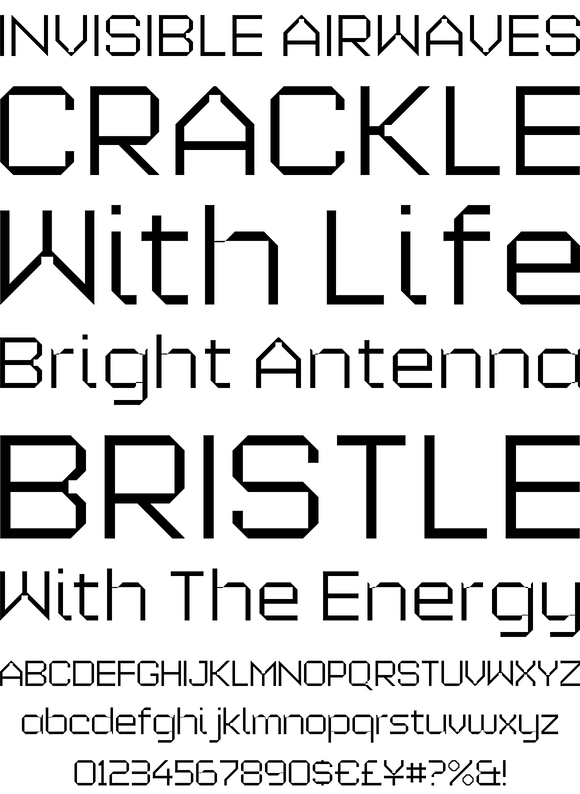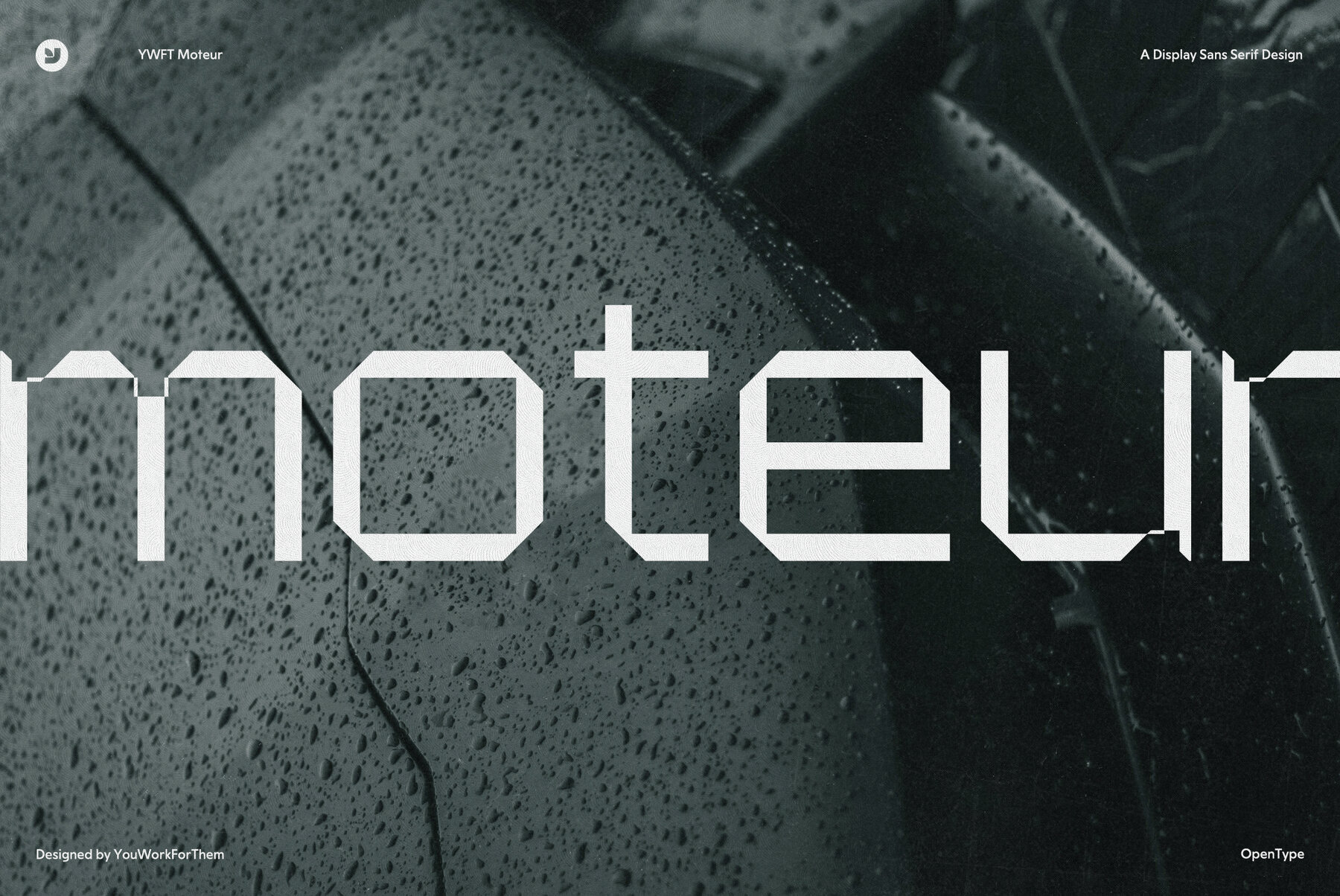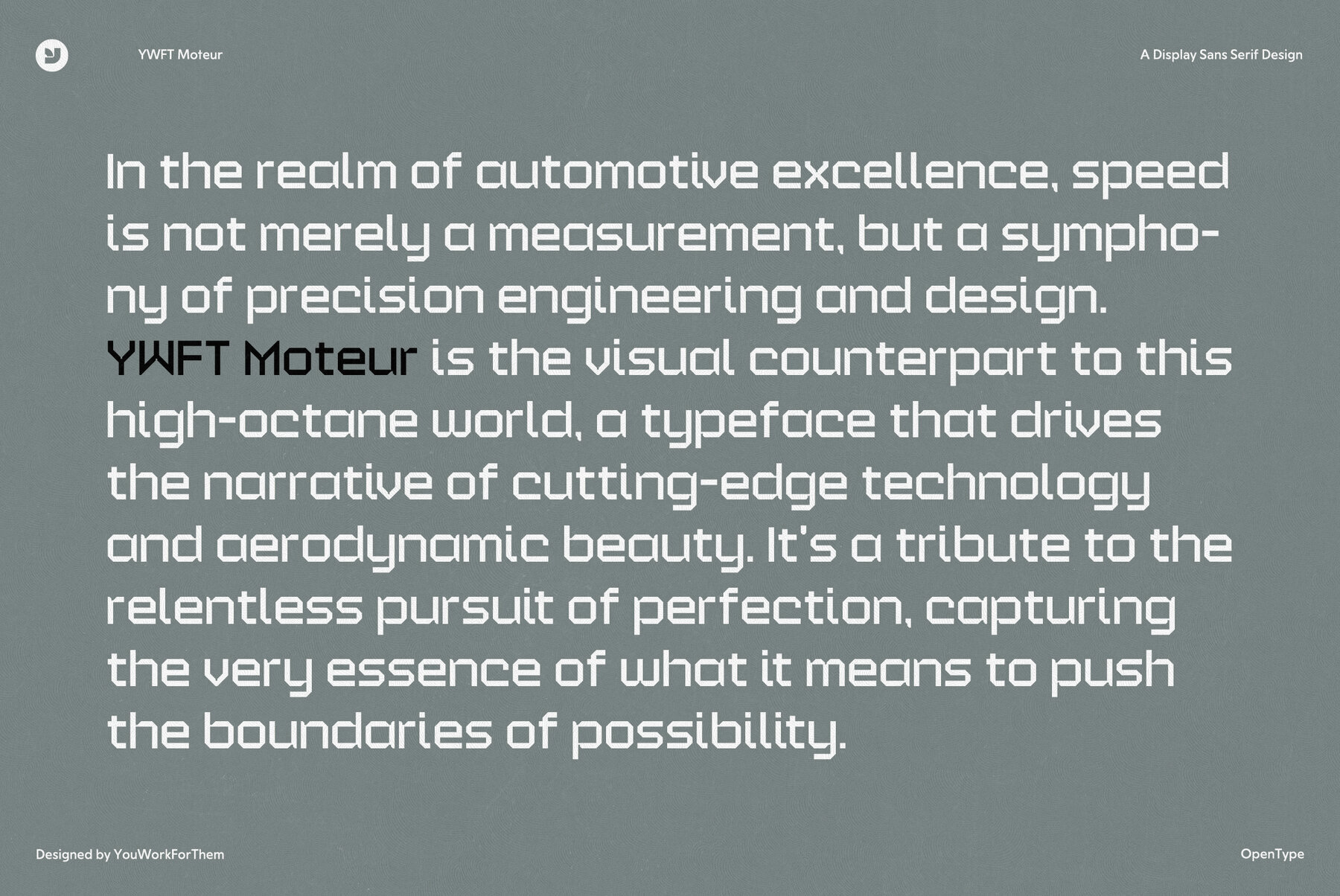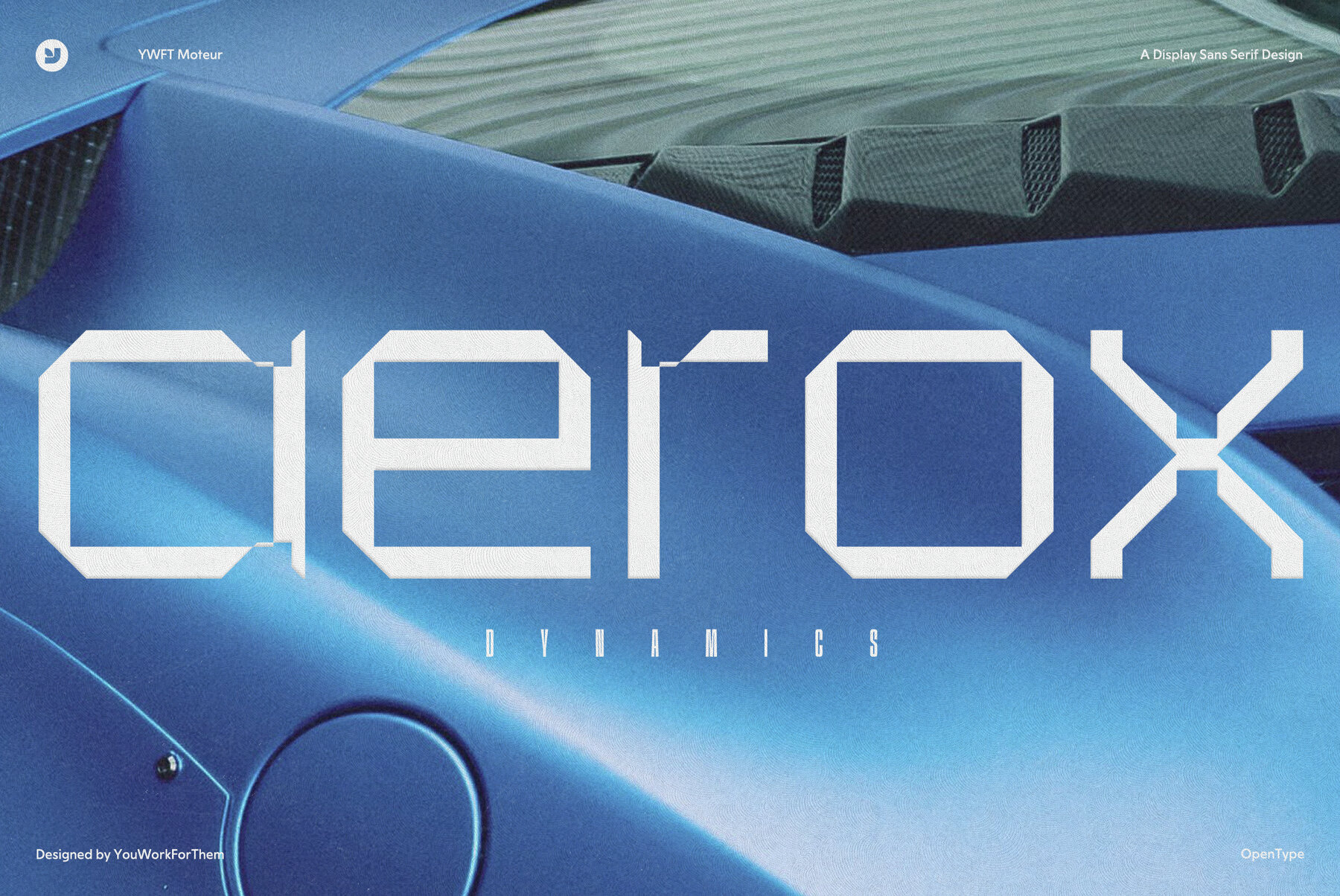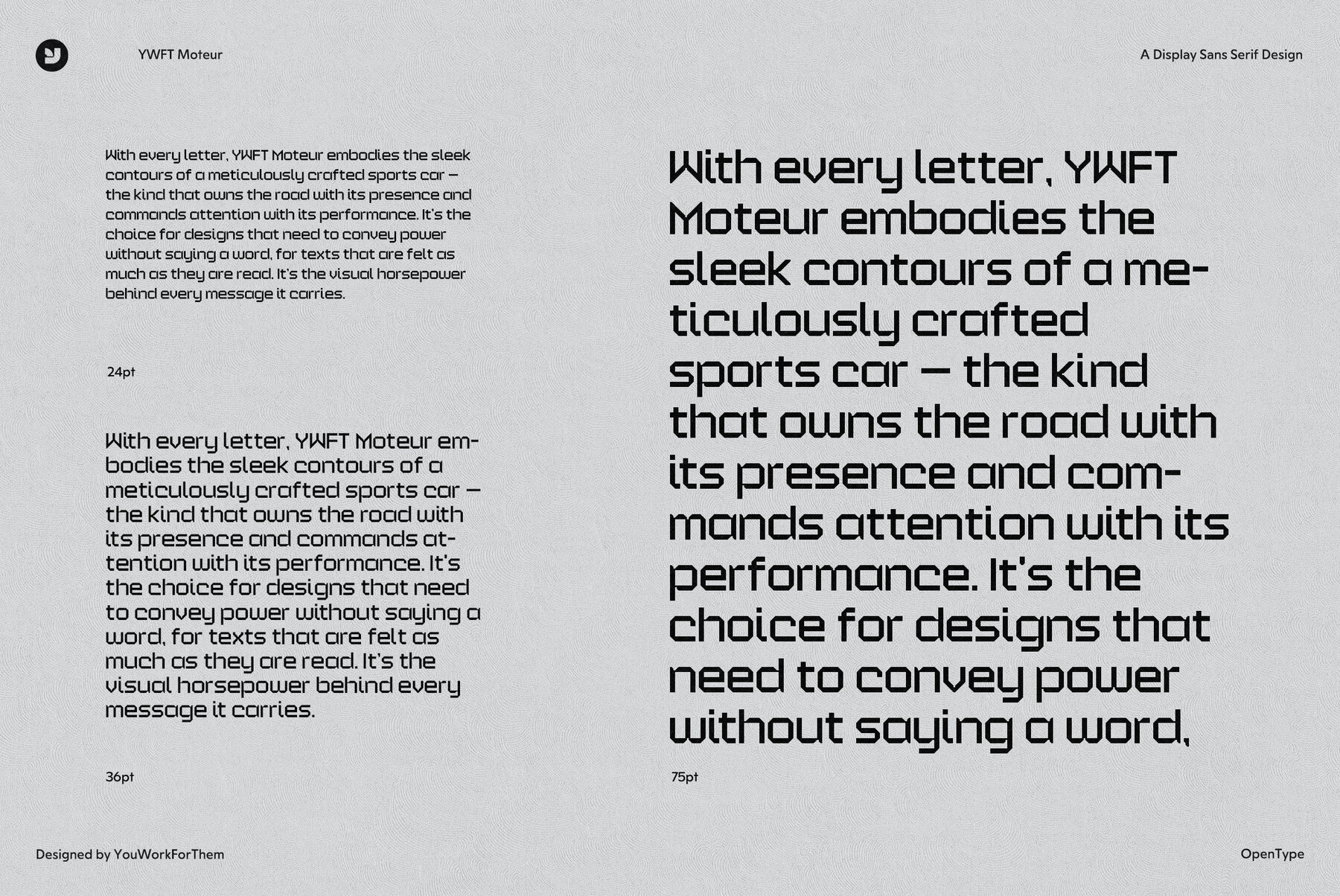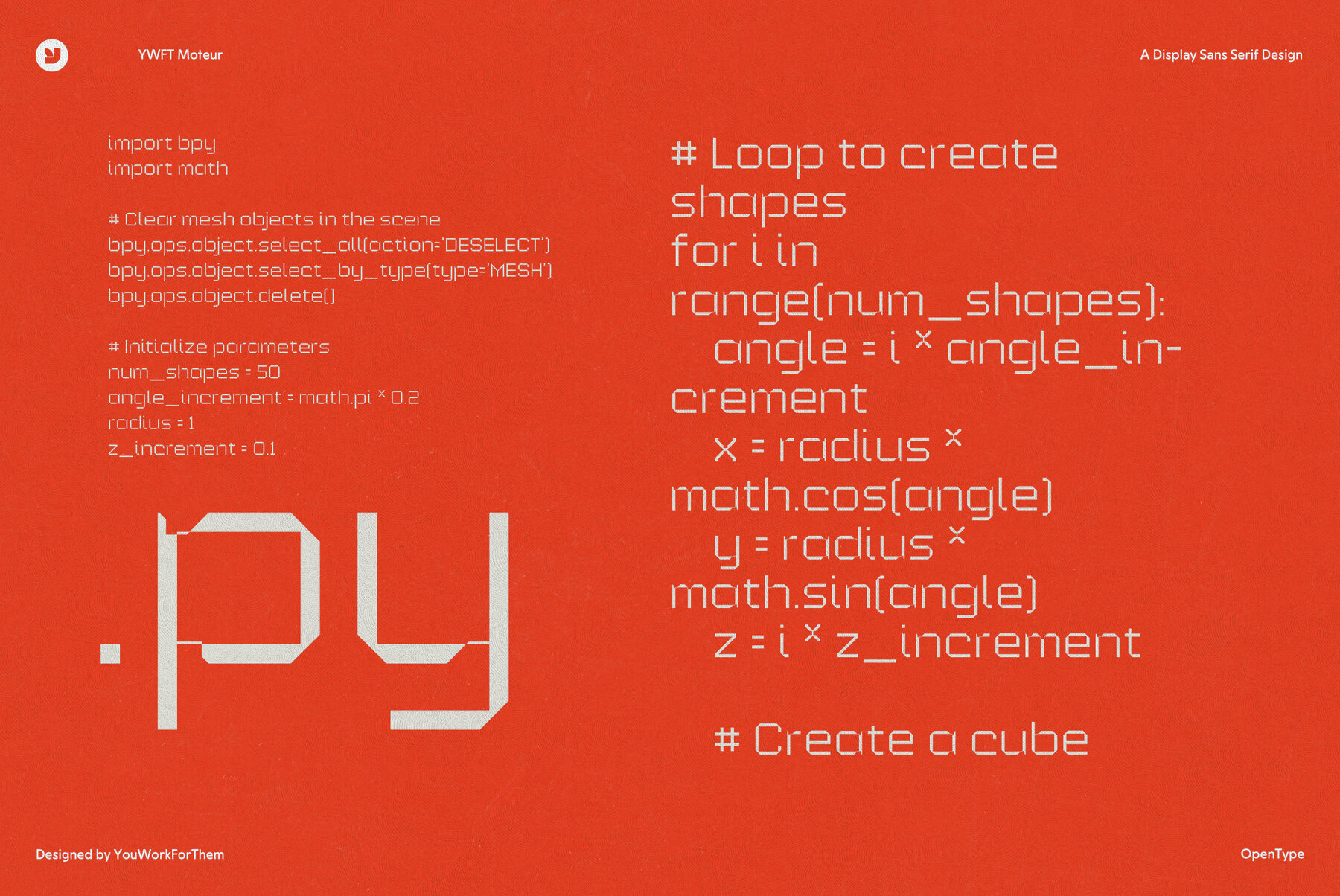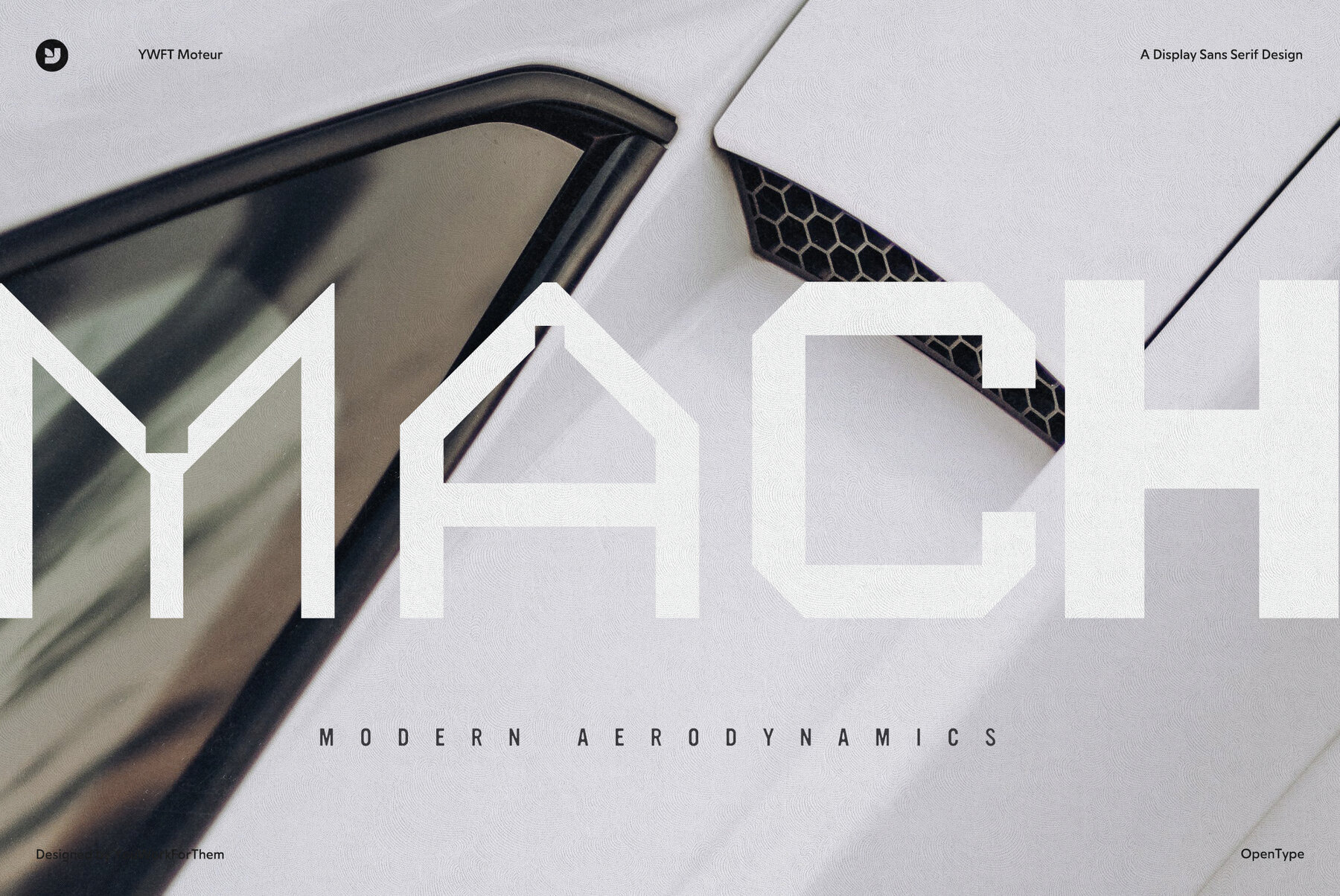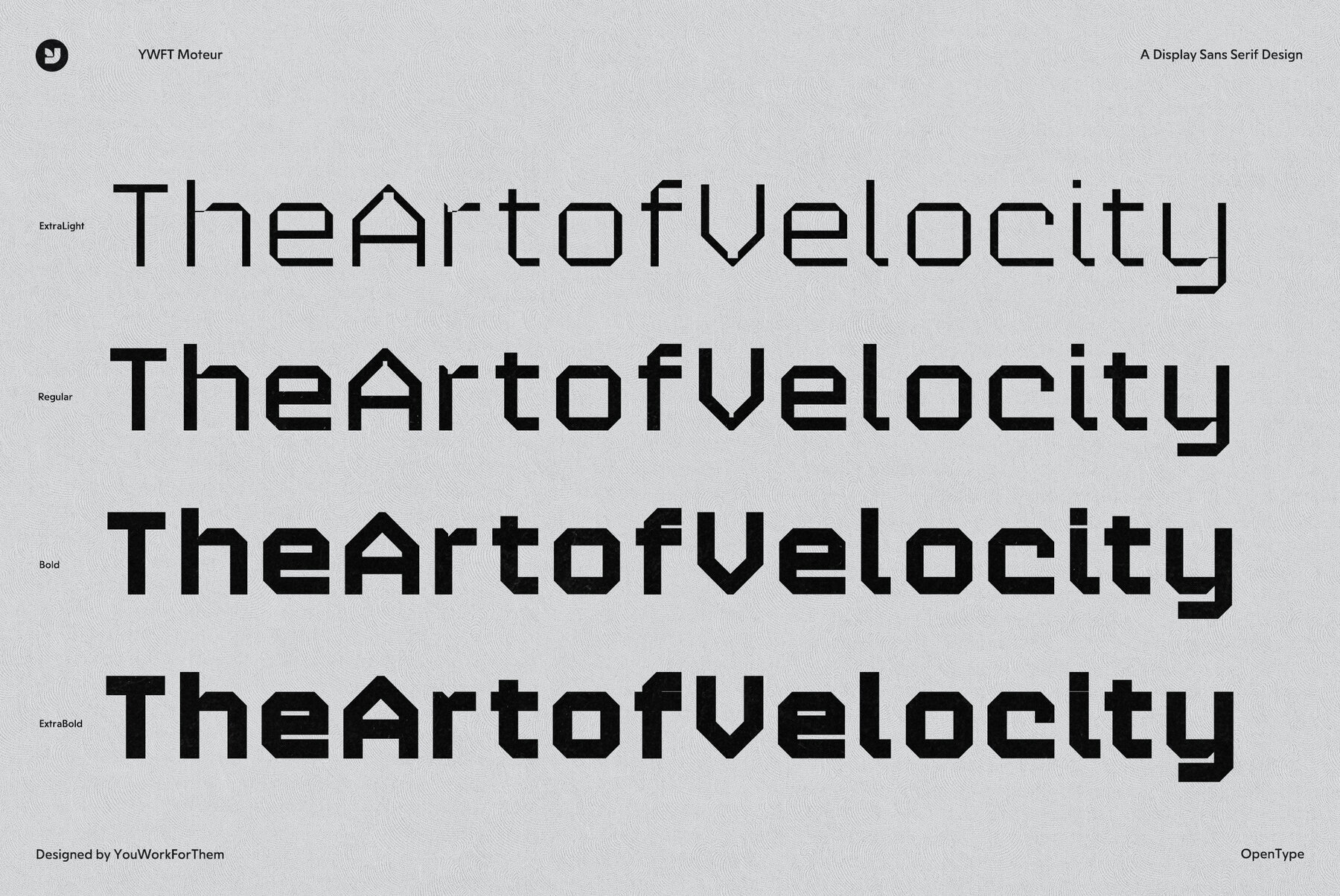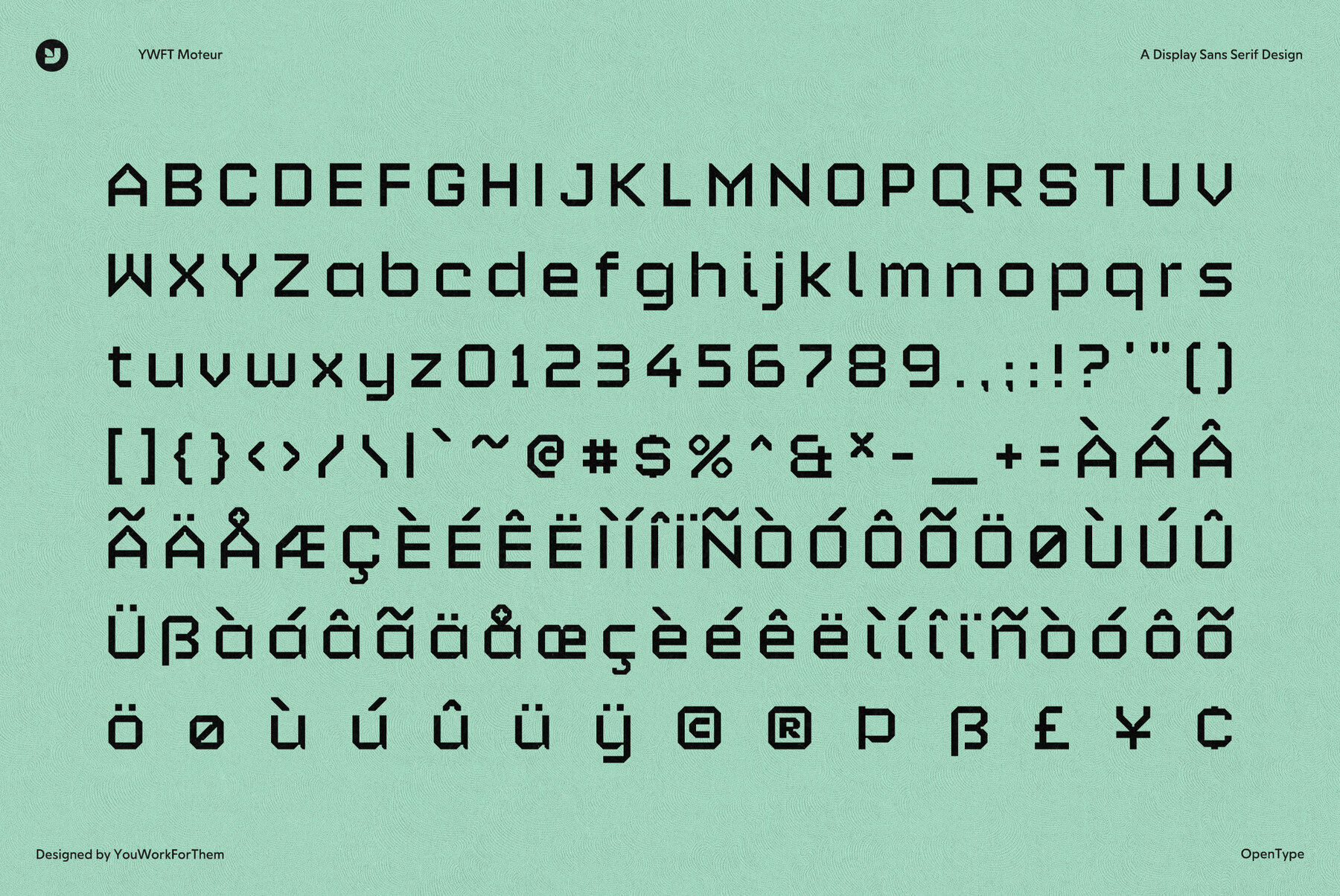
YWFT Moteur
Foundry: YouWorkForThem
YWFT Moteur began as a technical, retro, machine-like design, with a second version later released as YWFT Maetl. YWFT Moteur carries a strong inspiration from the type work of Wim Crouwel, but branches into a new realm of a more French/German engine-like type design. YWFT Moteur works very well as a headline, especially in poster design projects. YWFT Moteur was converted to Opentype in 2010, and was previously known as Alloy. In the early 2000's it was used heavily by the video gaming magazine 'Playstation' for headline and display purposes. Designed exclusively by Michael Cina and YouWorkForThem.